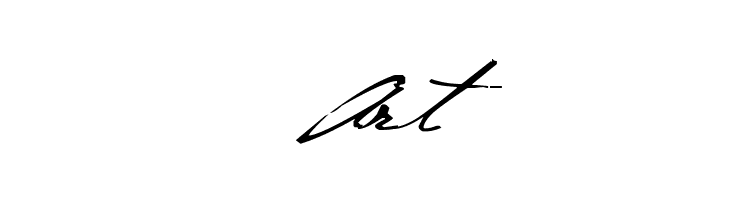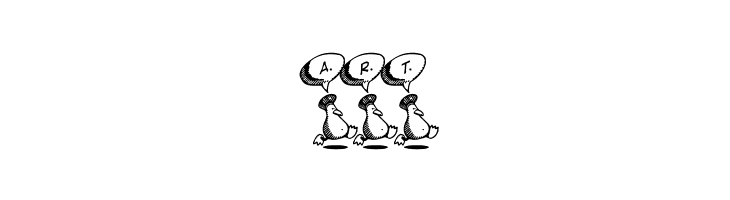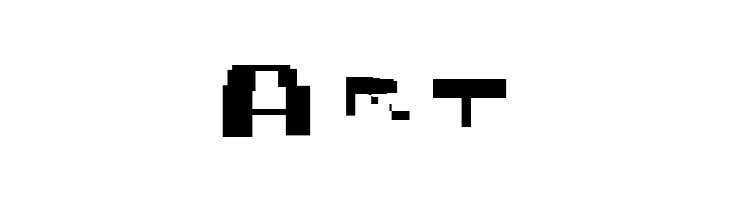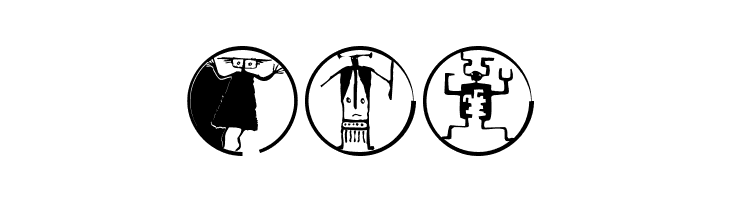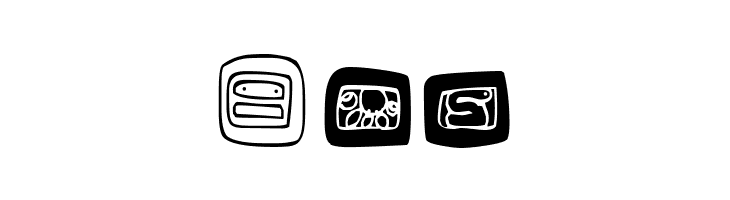
A playful, hand-drawn font with a whimsical and casual style.
A whimsical, elegant cursive font with flowing, artistic strokes.
A playful, cartoonish font with characters in speech bubbles held by ducks.
A bold, geometric font with a modern, digital aesthetic.
A decorative font featuring pictographic symbols inspired by ancient cave art.
A decorative font with glyph-like symbols resembling ancient hieroglyphs.